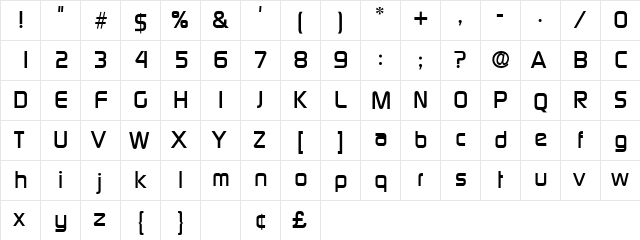
Bazouk SSi Regular
Design Context for Bazouk SSi Typeface
Bazouk SSi is a composed and adaptable typeface that performs quietly and consistently across a wide range of design contexts.